Another month means another set of beautiful typefaces for you to check out. Here were our favorites from March.
Sudtipos: Courtesy Script Pro
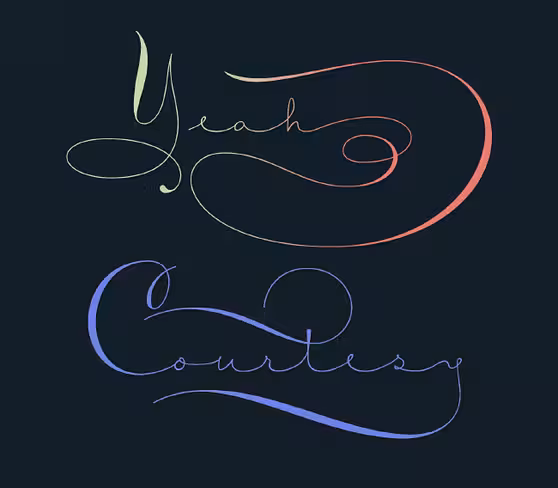
Courtesy Script Pro captures the elegance and propriety of finely practiced Spencerian penmanship.
The Northern Block: Rein Grotesk
Rein Grotesk is a low contrast typeface with a strong, neutral personality.
Hoefler & Co: Surveyor
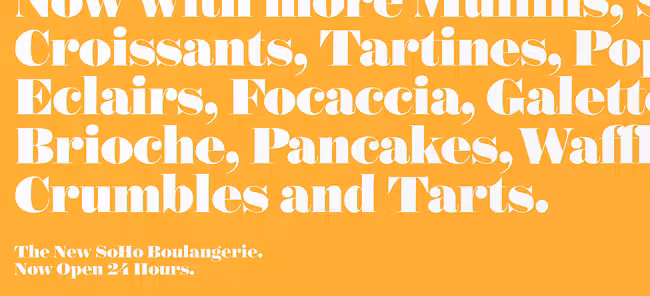
A monumental family of typefaces designed for print and screen.
Stawix: Crique Grotesk
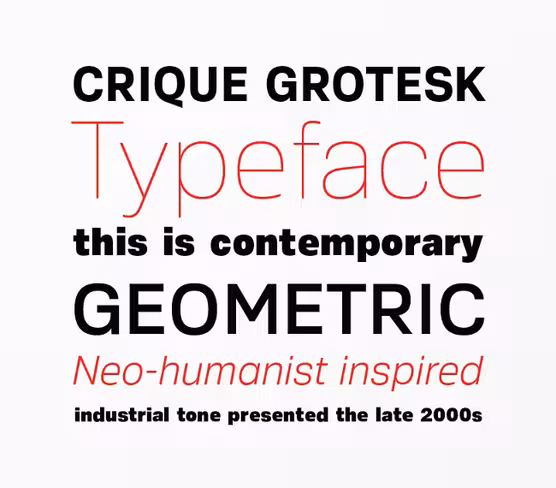
Crique Grotesk is inspired by neo–humanist and geometric industrial tones.
Yellow Design Studio: Gist Rough
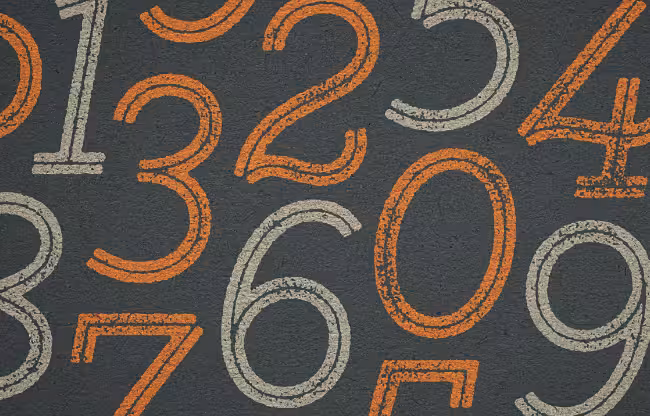
Gist Rough — warm and weathered with a retro yet modern vibe.
Village: Marigny
A casual typeface that was drawn with serious typography in mind.
FaceType: Pinto
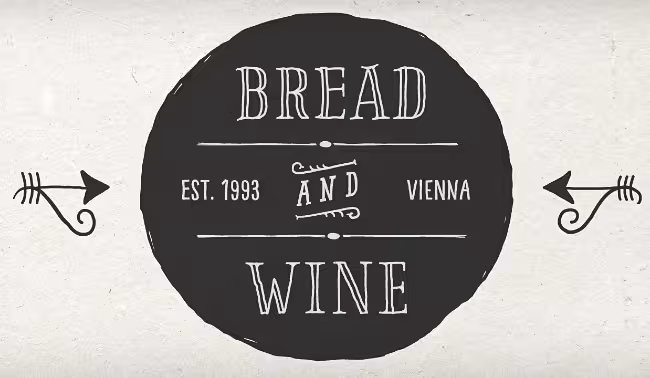
The irregular, hand–lettered look adds a human touch to things.
Latinotype: D.I.Y. Time
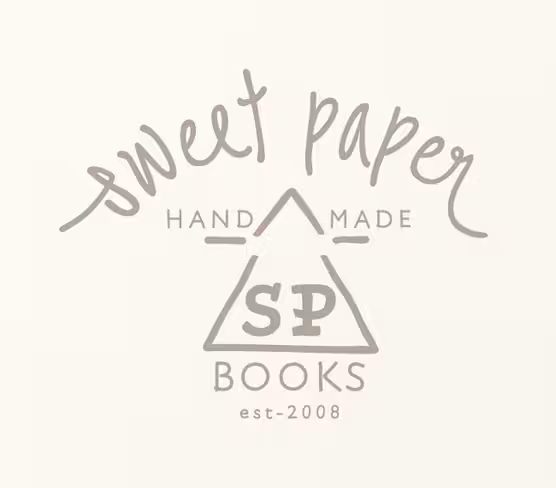
A hand–drawn type system.
Font Bureau: Big Moore
Big Moore — a grand serif design by Matthew Carter.
Type Dynamic: Predige Rounded
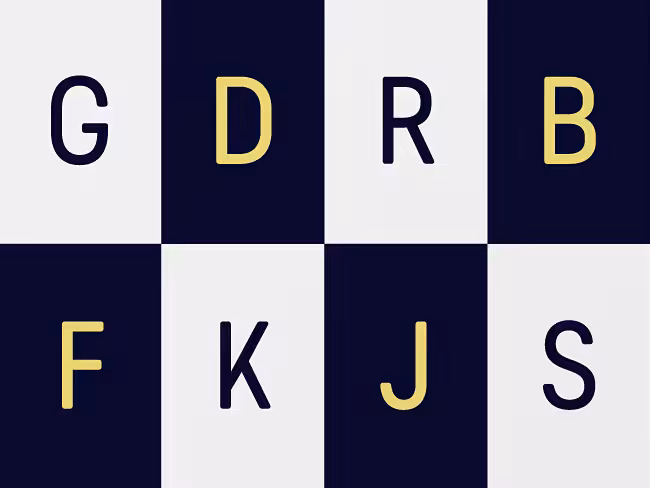
Predige Rounded is a condensed and constructed sans type family with a very low contrast.
The Northern Block: Modum
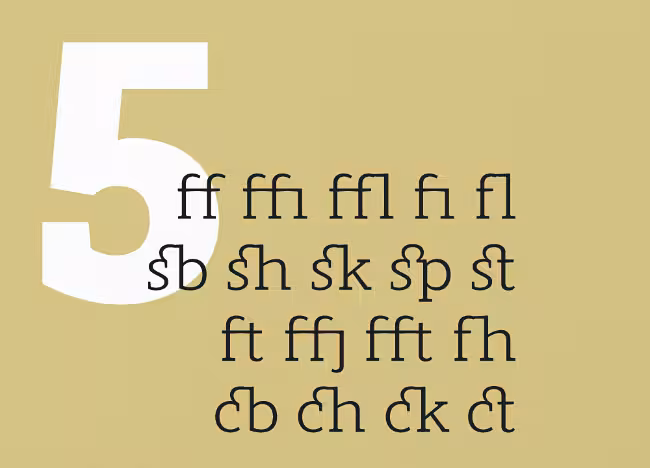
Modum — a precise, highly functional text face.
ReType: Laski Slab
Laski Slab is a comprehensive suite of 20 fonts conceived for editorial purposes.
Mint Type: Anglecia Pro
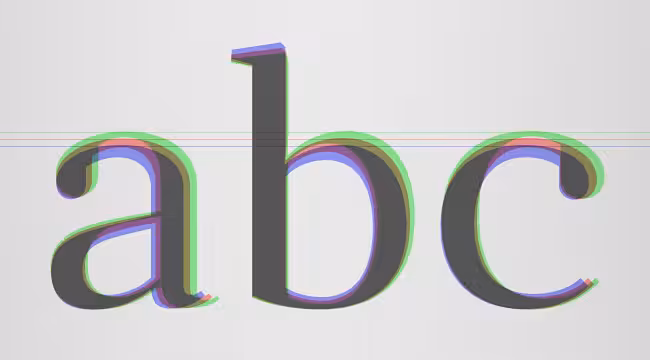
Anglecia Pro is an exquisite and versatile system of three transitional serif typefaces.
TipoType: Mariné
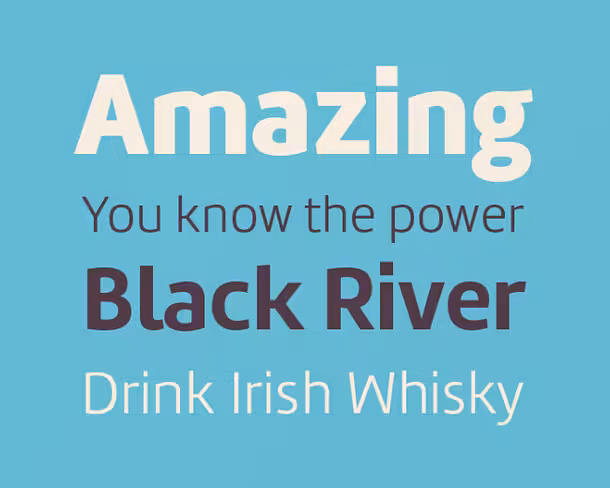
Mariné is a geometric sans with the softness of humanistic strokes.
Village: Gravitas
Gravitas is a contemporary take on the Roman inscriptional capitals.
Type Dynamic: Sarine
Sarine is a sans–serif inspired by signage for traffic.
Kyle Wayne Benson: Maritime Champion
Maritime Champion — he’s all caps all the time.
Avondale Type Co: ATC Overlook
A clean, versatile font with modern sensibilities and a dash of character.
Mostardesign: Sofia Pro Soft
Sofia Pro Soft is the rounded version of the successful Sofia Pro family.
Kostic: Briller
Briller is a super–wide display sans.
Colophon: Castledown
Castledown includes 8 cuts with both a proportional family, as well as a Cursive script variant.
Martina Flor: Wonderhand
Wonderhand is an extensive family of scripts designed in six widths and three weights.
Fontyou: Coco FY
Coco FY is a vintage script reminding of storefronts sign paintings, and other hand–lettered street signs.